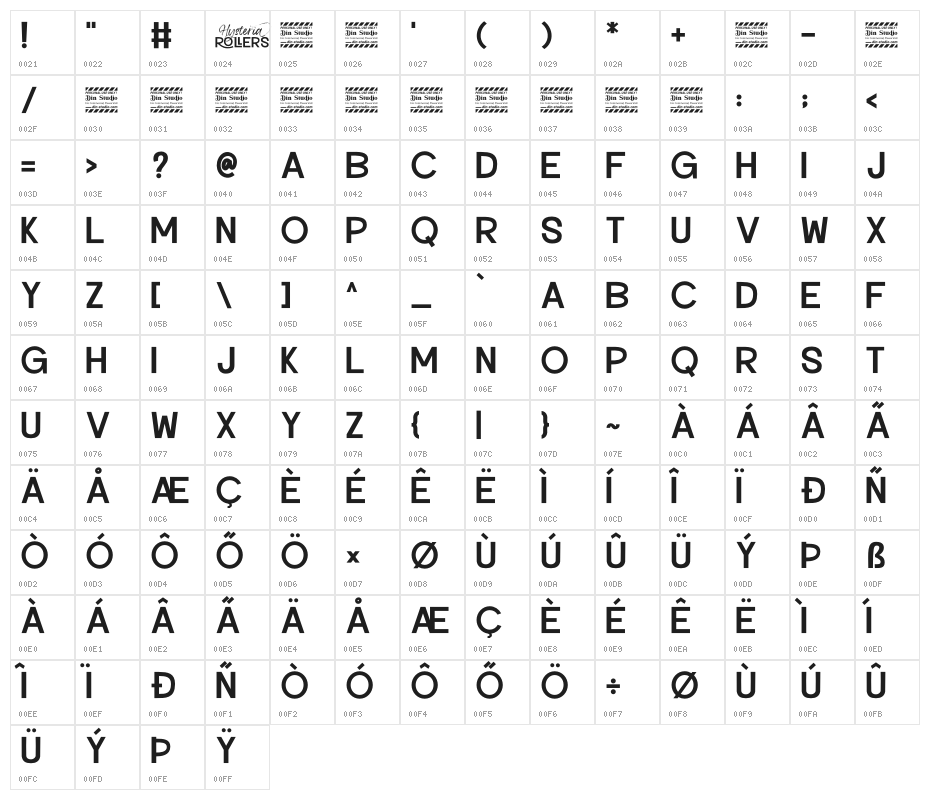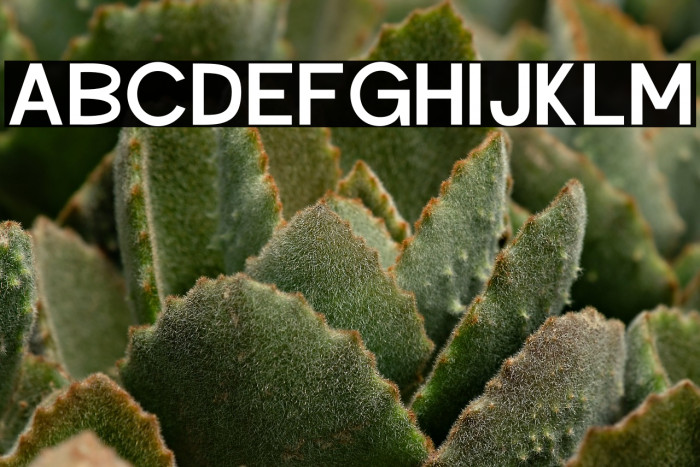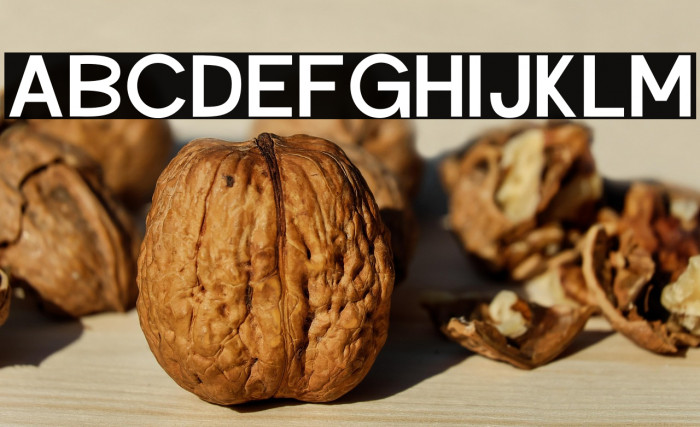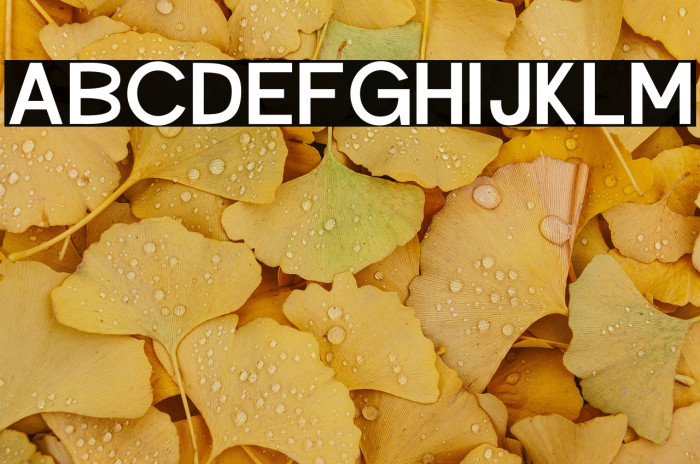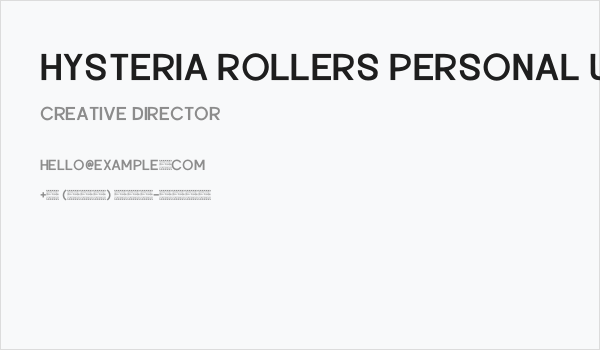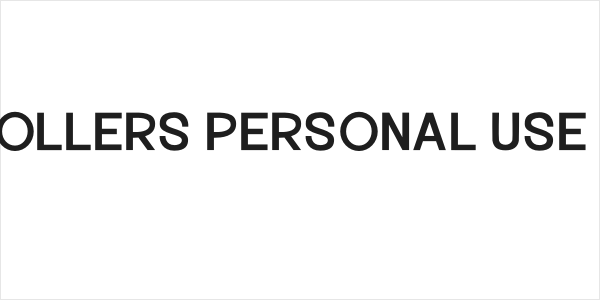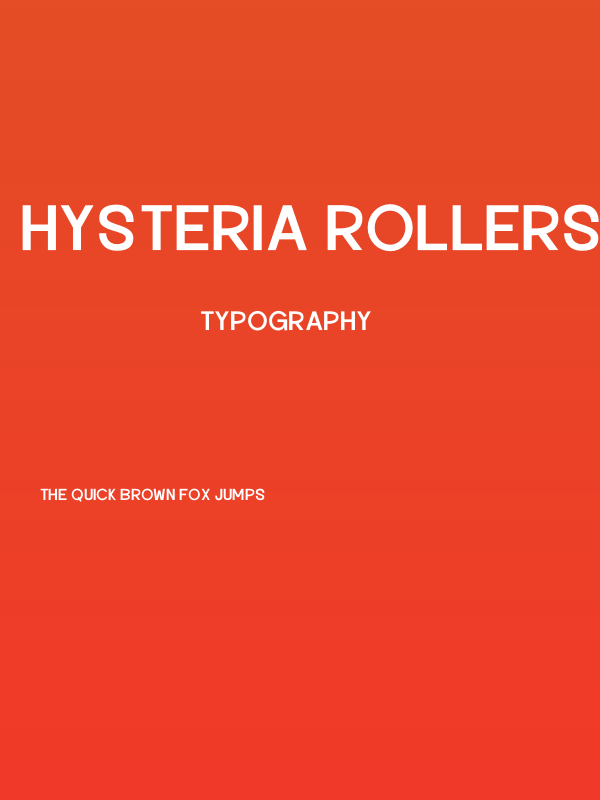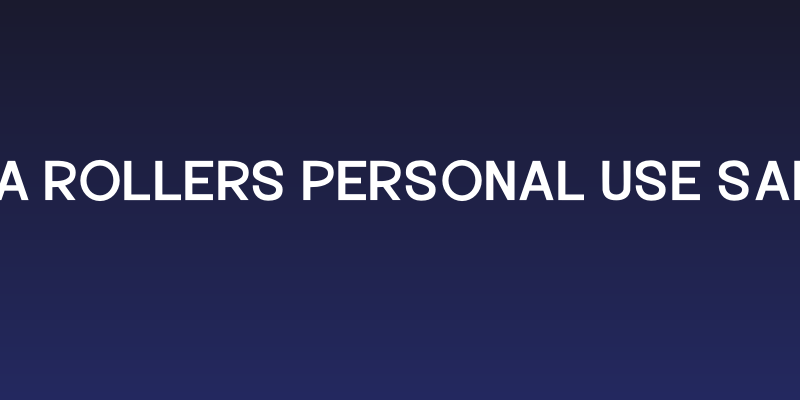
Hysteria Rollers Personal Use Sans Serif Font
Hysteria Rollers Personal Use Sans Serif Description
This font features a clean and modern sans-serif style, characterized by its bold and uniform stroke width. The uppercase letters are well-defined with a geometric precision, offering a contemporary and professional appearance. The lowercase letters maintain the same clarity and simplicity, making it versatile for various design applications. The numerals are straightforward and align seamlessly with the overall aesthetic. Special characters are included, enhancing its usability for diverse projects. The font's design is both functional and visually appealing, suitable for creating impactful headlines and branding materials.
| Proposed Projects | Ideal for branding, advertising, headlines, and digital media projects. |